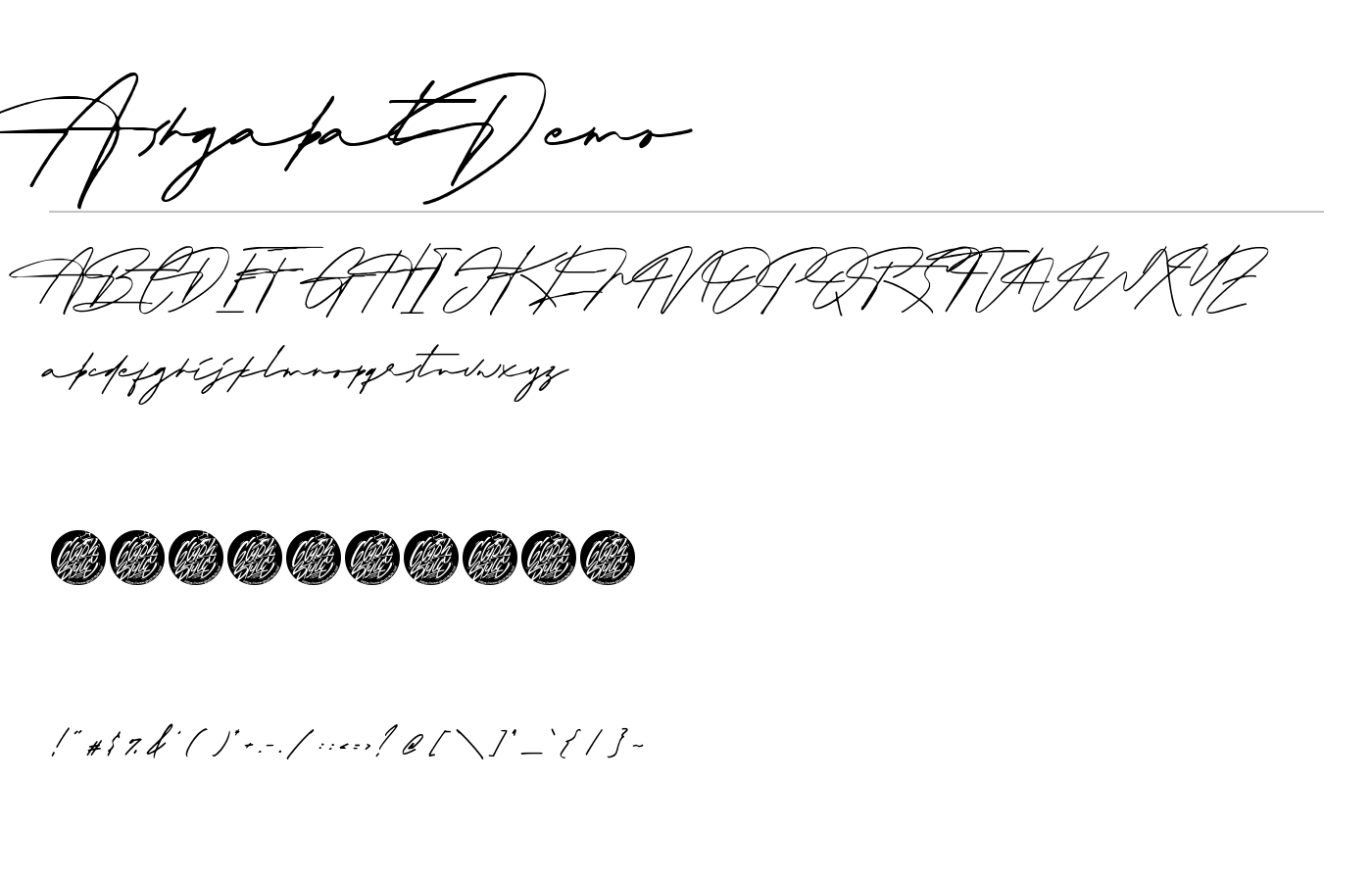
Ashgabat Demo is a delicate, handwritten script font that exudes a casual yet elegant charm with its thin, fluid strokes and airy letterforms. It is ideal for creative projects like invitations, branding, and signatures where a personal, artistic touch is desired. Its graceful style adds a sense of uniqueness and sophistication perfect for fashion, lifestyle, and boutique aesthetics.
Ashgabat Demo Font